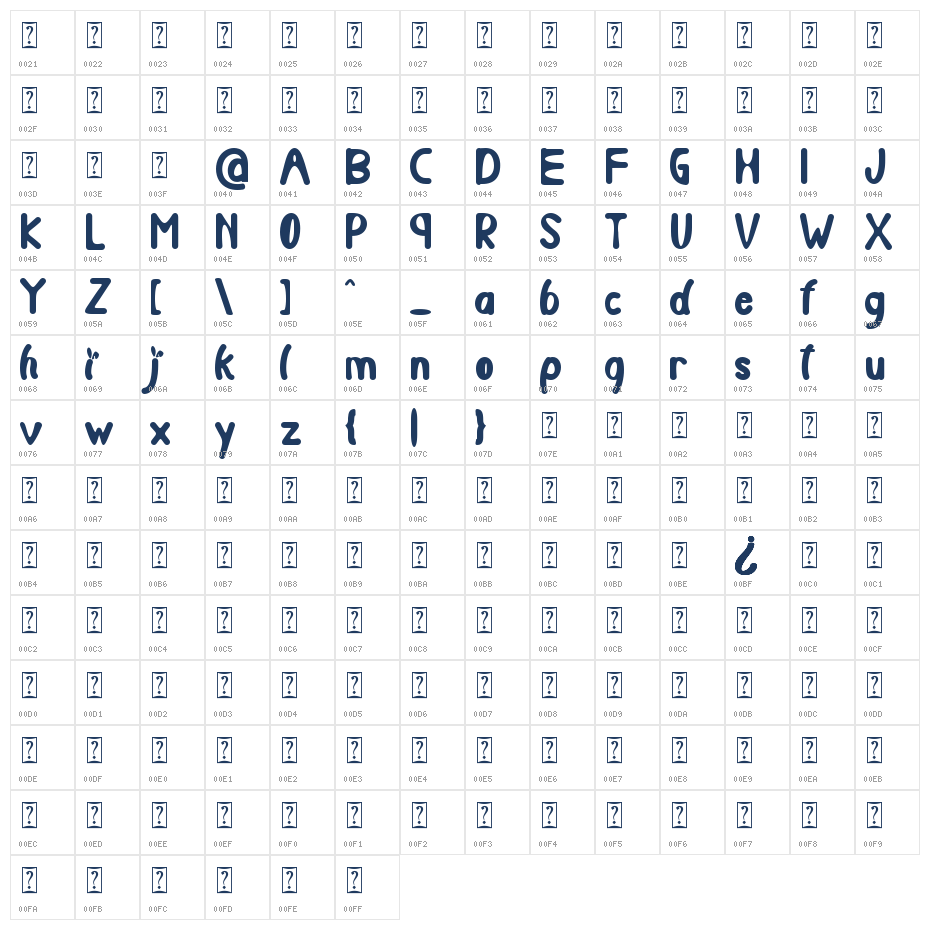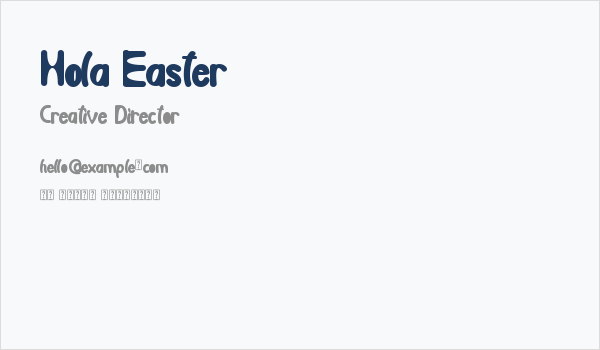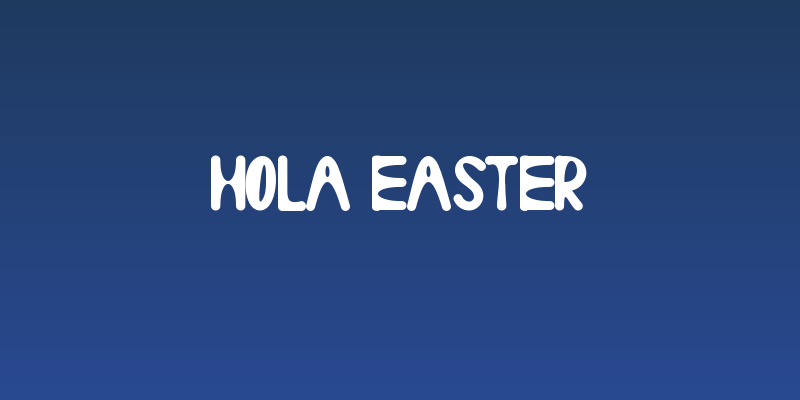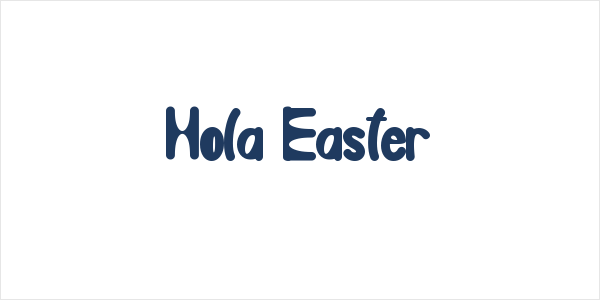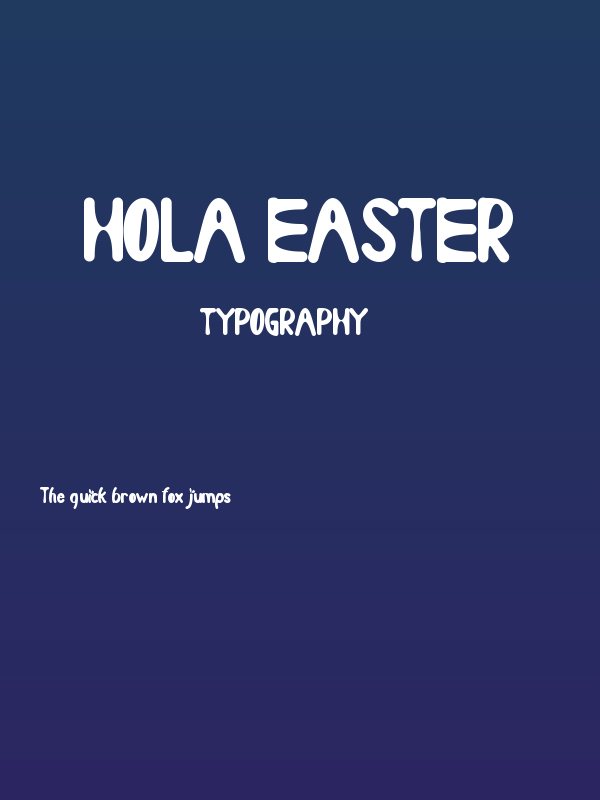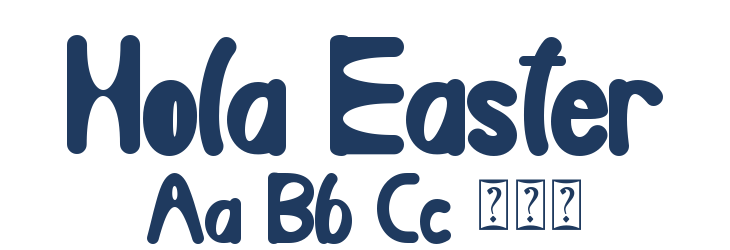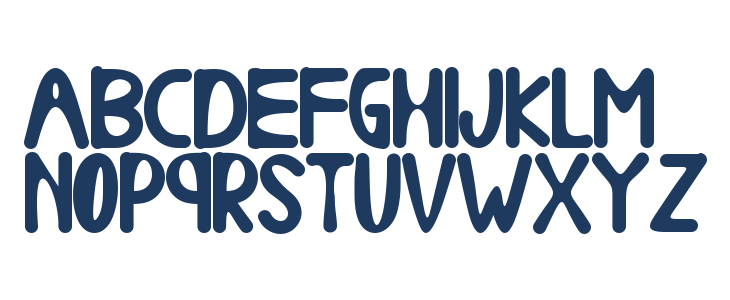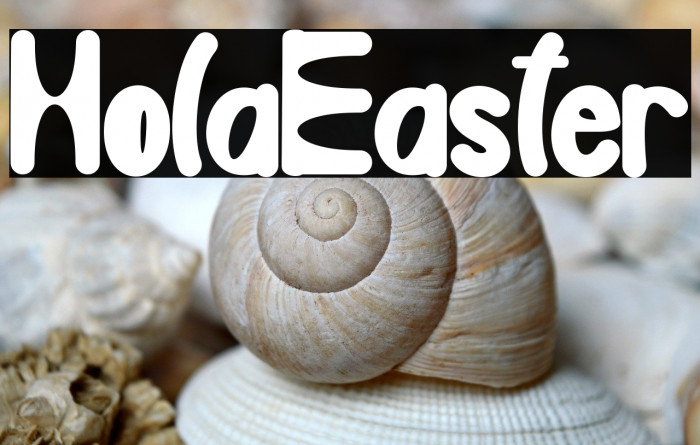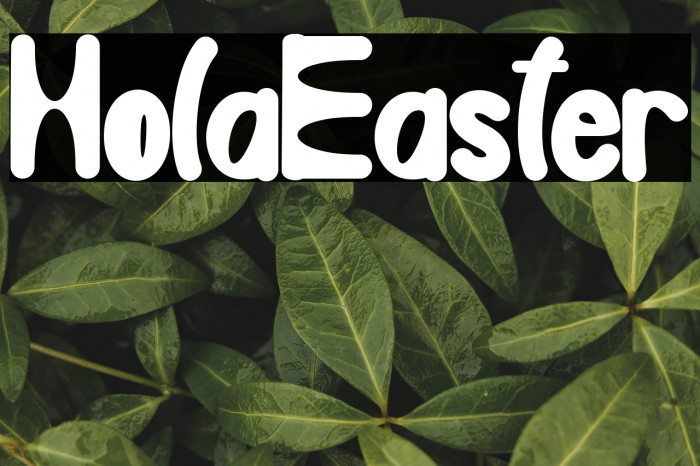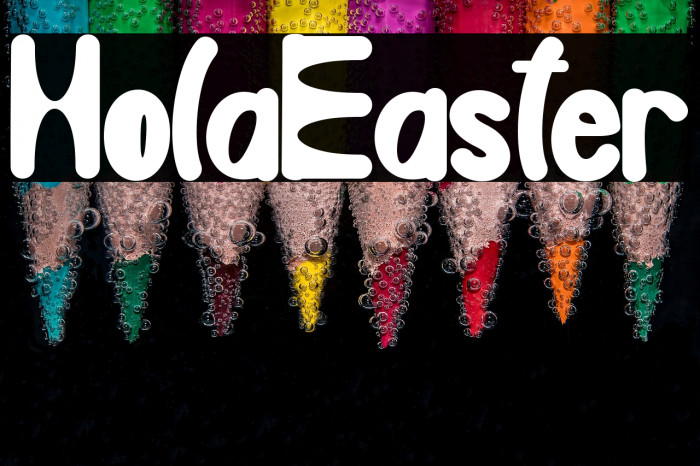
Hola Easter Font
A playful, rounded, handwritten style font with a casual and friendly appearance.
| Overall Style | Casual, Playful, Friendly |
| Use Case | Headlines, Body text, Logos, Invitations |